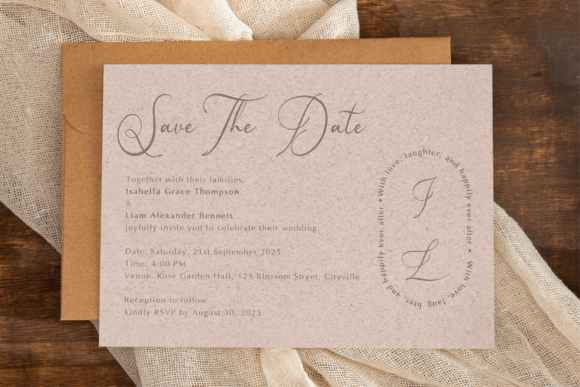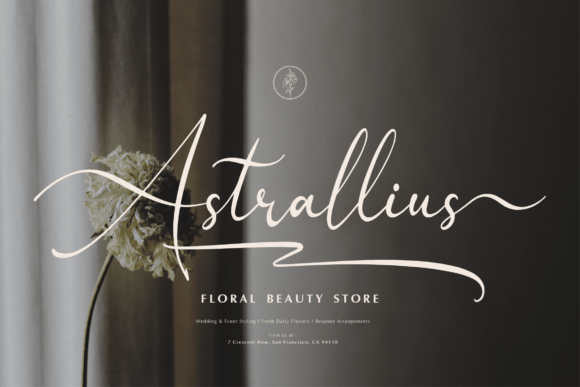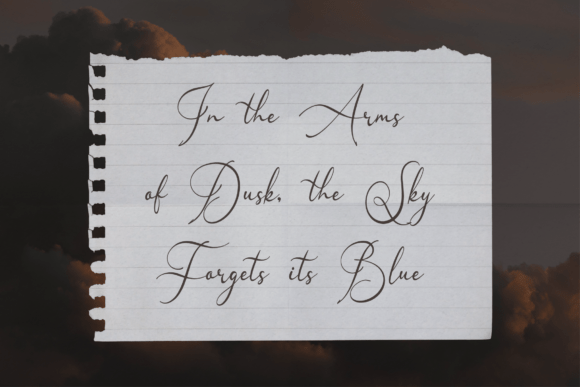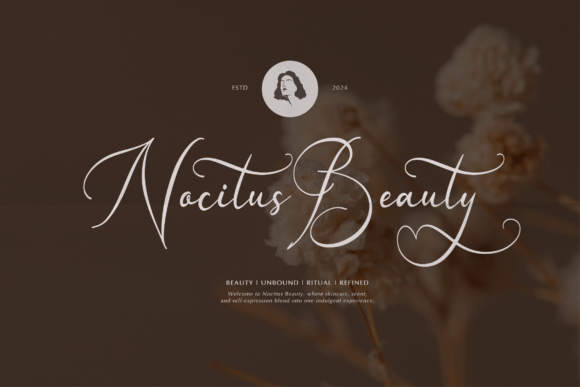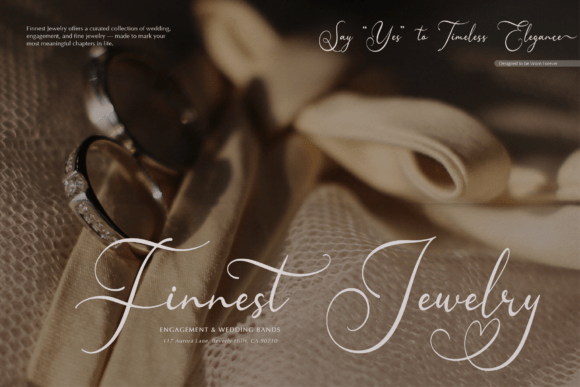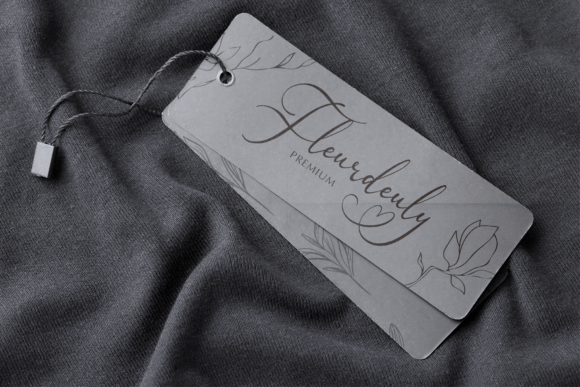
Introducing Gladyamor Font: Elevate Your Designs with Luxurious Elegance
In the world of typography, few fonts capture the essence of luxury and sophistication as effortlessly as Gladyamor. This stunning modern calligraphy font is meticulously crafted with sweeping flourishes and fine strokes, designed to evoke a sense of romance and refinement. Whether you’re a designer, craftsperson, or simply someone who appreciates beautiful typography, Gladyamor is an exceptional choice for projects that demand elegance and poise.
The Perfect Choice for Discerning Designers
Gladyamor is more than just a font – it’s an experience. With its intricate details and flowing lines, this typeface is tailor-made for projects that require a touch of sophistication. From wedding invitations and branding materials to upscale packaging and high-end stationery, Gladyamor brings a level of refinement that’s hard to match. Its versatility and beauty make it an ideal choice for designers seeking to create timeless, high-quality work.
Key Features of Gladyamor Font
- Over 300 Glyphs: Gladyamor boasts an extensive character set, ensuring that you have access to a wide range of letters, numbers, and symbols to suit your design needs.
- Ligatures: The font includes beautifully crafted ligatures, which allow you to create smooth, flowing connections between letters for a more natural, handwritten look.
- Multilingual Support: With Gladyamor, you can create designs in multiple languages, making it an excellent choice for global brands or projects with diverse audiences.
Crafting Timeless Beauty with Gladyamor
For designers and crafters, Gladyamor offers a world of creative possibilities. Its elegant lines and refined features make it perfect for a variety of applications, including:
- Wedding Invitations: Add a touch of romance and sophistication to your wedding stationery with Gladyamor’s beautiful, flowing script.
- Branding: Elevate your brand’s visual identity with a font that’s both luxurious and memorable.
- Upscale Packaging: Make a lasting impression with Gladyamor’s elegant typography, perfect for high-end product packaging.
- High-End Stationery: Create bespoke stationery that exudes refinement and poise, ideal for luxury brands or special occasions.
Why Choose Gladyamor Font?
In a world where typography plays a crucial role in design, Gladyamor stands out as a shining example of elegance and sophistication. Here are just a few reasons why designers and crafters are falling in love with this stunning font:
- Unique and Memorable: Gladyamor’s distinctive design ensures that your work will stand out from the crowd, making a lasting impression on your audience.
- Flexible and Versatile: With its extensive character set and multilingual support, Gladyamor adapts seamlessly to a variety of design applications.
- Timeless Beauty: This font’s classic lines and refined features ensure that your designs will remain beautiful and relevant for years to come.
Gladyamor font is a masterpiece of modern calligraphy, offering a level of luxury and sophistication that’s hard to find in the world of typography. With its sweeping flourishes, fine strokes, and extensive character set, this font is the perfect choice for designers and crafters seeking to create timeless, high-quality work. Whether you’re working on a wedding invitation, branding project, or upscale packaging, Gladyamor is the ideal choice for anyone who demands the best.